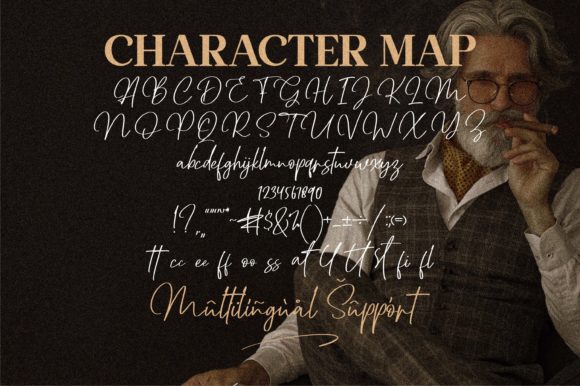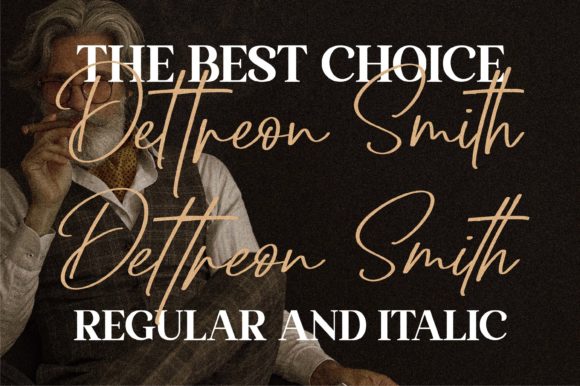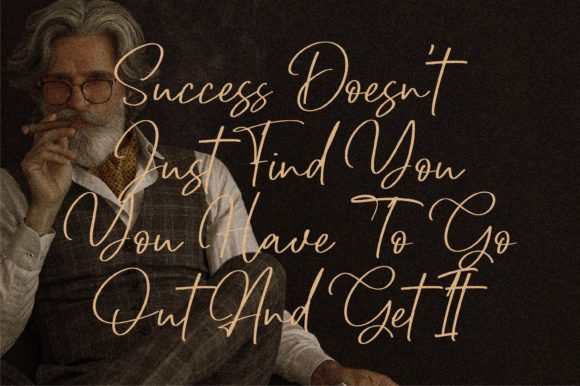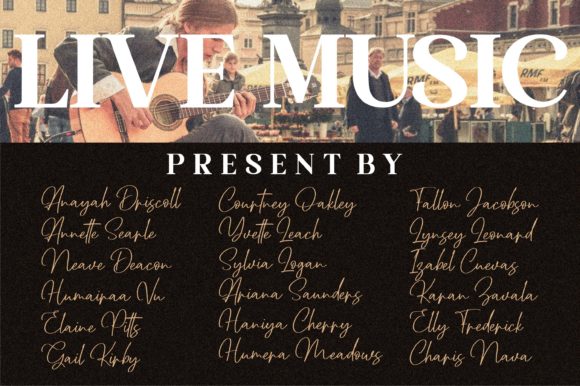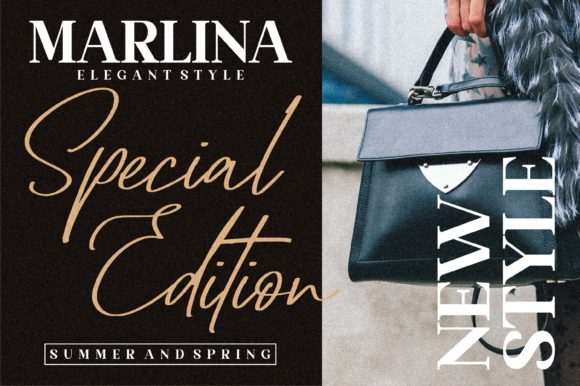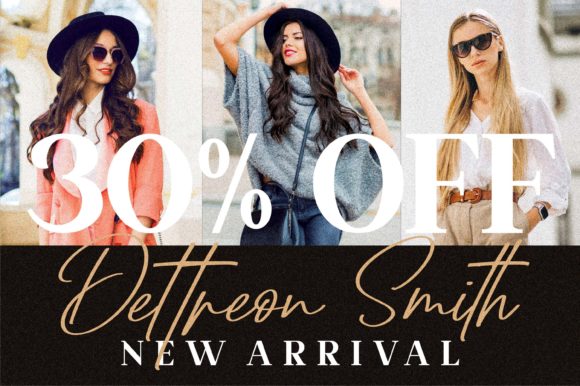
Introduction to Dettreon Smith Font
As a designer, have you ever stared at a blank canvas, trying to bring a creative project to life? The right font can make all the difference, elevating your design from ordinary to extraordinary. I still remember the thrill of discovering the perfect font for a client’s luxury brand – it was like the missing piece of a puzzle had finally fallen into place.
That’s where the Dettreon Smith Font comes in – a stunning, light handwritten font that adds a touch of luxury to any design project. With its unique feel and high-quality aesthetic, this font is sure to make a lasting impression. And the best part? It’s PUA encoded, making it easy to access all the amazing glyphs and ligatures you need to take your design to the next level.
Whether you’re working on a free download project or a high-end commercial campaign, the Dettreon Smith Font is a valuable resource that’s sure to inspire your creativity. So why settle for a transparent background or an ordinary font when you can add a little luxury to your design with this beautiful, free font?
Key Features of Dettreon Smith Font
- Unique, high-quality font design perfect for creative projects and design resources.
- Supports transparent background, allowing for seamless integration with images and other design elements.
- High-resolution font, suitable for print and digital applications, with a minimum resolution of 300 DPI.
- Designed to be highly legible, making it an excellent choice for body text and headings in creative projects.
- Comes in multiple weights and styles, providing versatility for various design applications.
Honest Review: Dettreon Smith Font
I recently stumbled upon the Dettreon Smith Font while searching for a free download for my latest creative project. As a designer, I’m always on the lookout for high-quality fonts that can elevate my work. In this review, I’ll share my honest thoughts on this font.
- ✨ The font has a clean and modern design, making it perfect for contemporary creative projects.
- ✨ The weight and style variations offer a lot of flexibility for designers to experiment with different typography combinations.
- ⚠️ The font doesn’t support a transparent background, which might limit its use in certain design scenarios.
- ⚠️ The character set is limited, which could be a concern for designers who need to use non-English characters.
Overall, I’m impressed with the Dettreon Smith Font’s potential. While it has some limitations, its high quality and versatility make it a valuable design resource. I’d definitely consider using it for future projects, especially when I need a clean and modern font.
How to Use Dettreon Smith Font
The Dettreon Smith Font is a high-quality, free download design resource ideal for creative projects. With its transparent background, this font offers endless possibilities for customization.
For the most out of the Dettreon Smith Font, experiment with different font sizes, colors, and combinations to achieve unique and eye-catching designs.
The Dettreon Smith Font is suitable for various design projects, including logos, posters, brochures, and social media graphics.
Alternatives to Dettreon Smith Font
Pacifica is a beautiful script font perfect for creative projects that require a high-quality, elegant look. It’s ideal for use in invitations, wedding cards, and other design elements that need a touch of sophistication.
Compared to Dettreon Smith Font, Pacifico has a more refined and sophisticated feel, making it suitable for more formal events and presentations. However, it lacks the bold and modern feel of Dettreon Smith Font.
Great Vibes is a modern script font with a fun and lively feel, ideal for creative projects that require a high level of energy and excitement. It’s perfect for use in social media graphics, advertisements, and other design elements that need to grab attention.
Compared to Dettreon Smith Font, Great Vibes has a more playful and casual feel, making it suitable for younger audiences and more relaxed design projects. However, it lacks the sophistication and elegance of Dettreon Smith Font.
Q: Is the Dettreon Smith Font suitable for use in digital media?
Yes, the Dettreon Smith Font is optimized for use in digital media, including websites, social media, and mobile apps. Its high-quality design and transparent background make it perfect for use on any background, ensuring that your design looks great on any device.